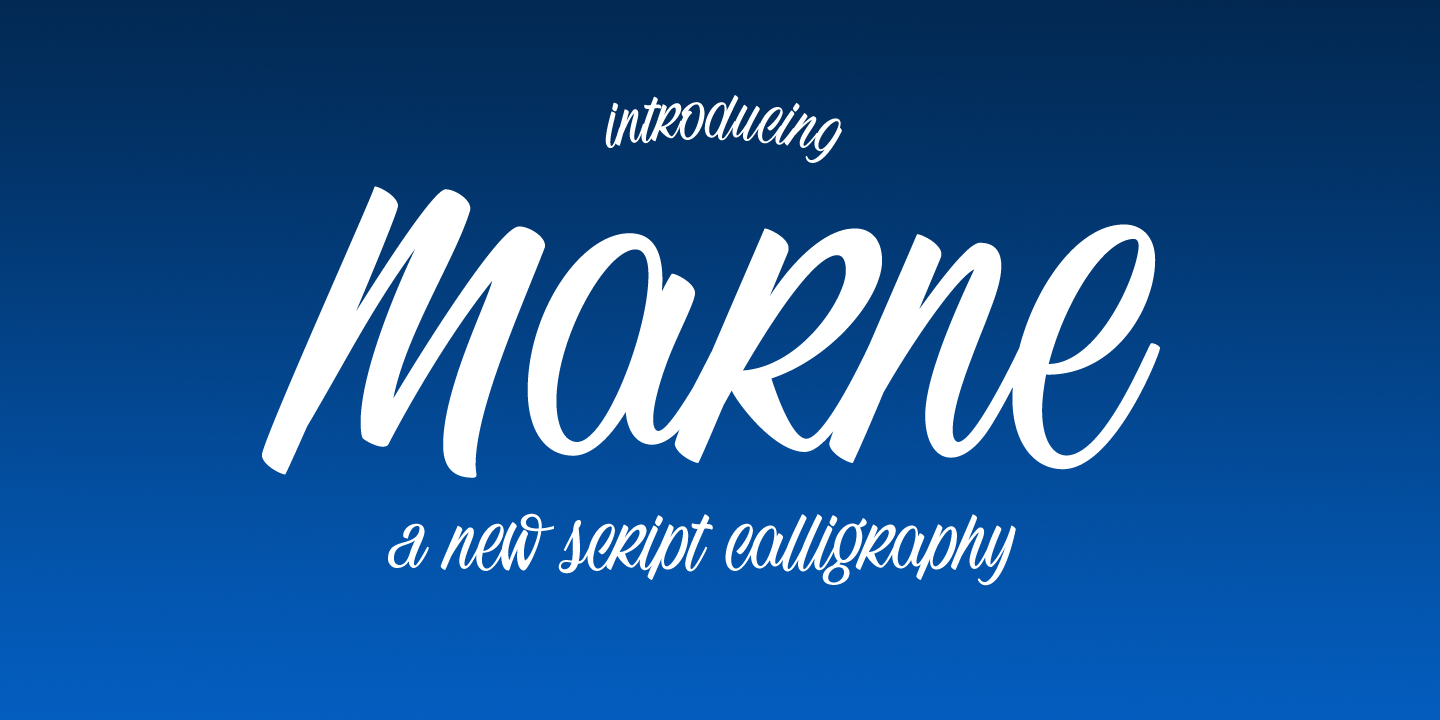
Marne Font is perfect for French countryside tourism, elegant wine region marketing, historic battlefield memorials, luxury French hospitality, Champagne valley promotions, heritage river cruise advertising, French cultural celebrations, sophisticated European travel, traditional French cuisine branding, and authentic French lifestyle communications.
What makes Marne Font exciting is its French heritage elegance that perfectly captures the sophisticated charm and cultural richness found in French regional traditions and European countryside sophistication. This typeface features refined letterforms with French-inspired proportions and cultural details that evoke the timeless beauty and elegant traditions of French heritage and European cultural excellence. The font's sophisticated personality and French authenticity make it ideal for heritage brands seeking to convey elegance, tradition, and the refined culture that comes from French regional heritage and European lifestyle sophistication.
Marne Font family includes elegant weight variations and French alternatives that enhance its cultural appeal while providing design flexibility for heritage and European lifestyle applications. The font features refined ligatures, French-themed ornaments, and cultural character variations that create authentic French atmosphere for heritage and cultural branding.
French tourism companies and European heritage brands consistently choose Marne Font Free Download for projects requiring authentic French appeal and cultural credibility. The font's elegant character excels in applications targeting cultural enthusiasts, French heritage appreciators, and sophisticated travelers who value genuine French culture and European heritage excellence. Whether you're designing for French tourism, heritage hospitality, or European cultural experiences, this sophisticated typeface delivers the French authenticity and cultural elegance that resonates with audiences seeking genuine European heritage and the refined sophistication that defines French regional culture and traditional European lifestyle excellence.